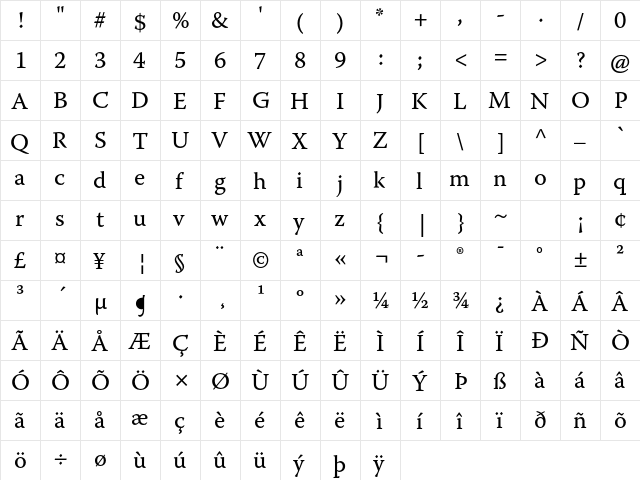
Warnock Pro Caption
| Designer | Robert Slimbach |
Design Context for Warnock Pro Typeface
Warnock Pro takes a measured approach to typography — its balanced proportions and neutral character make it a reliable workhorse for both digital and print work.